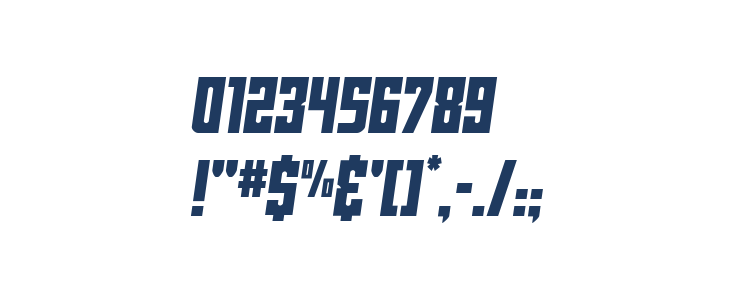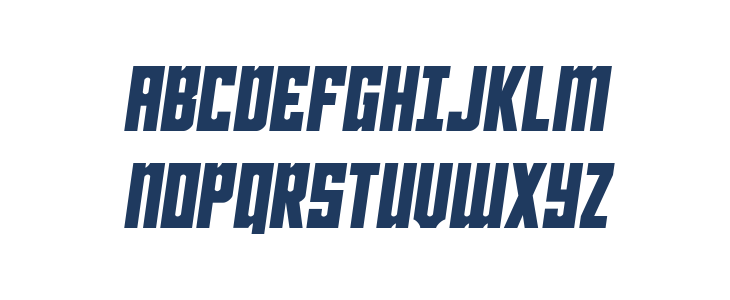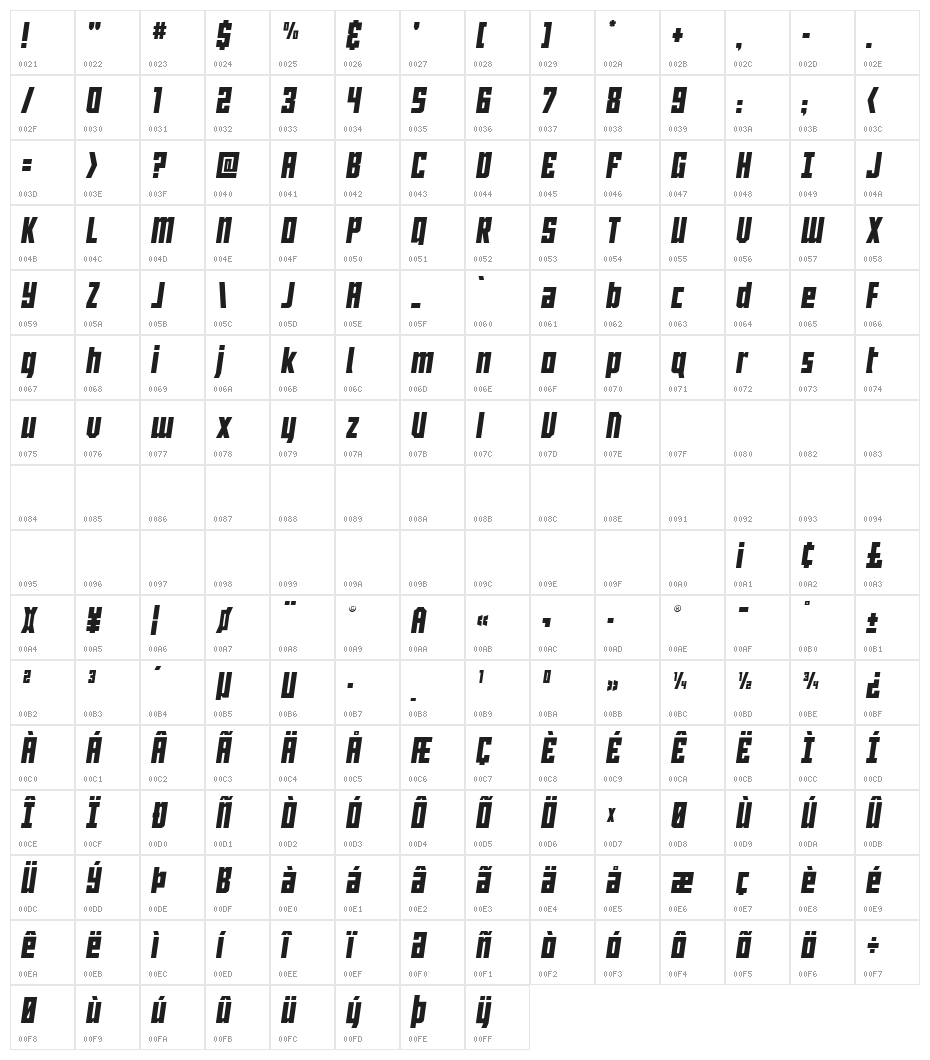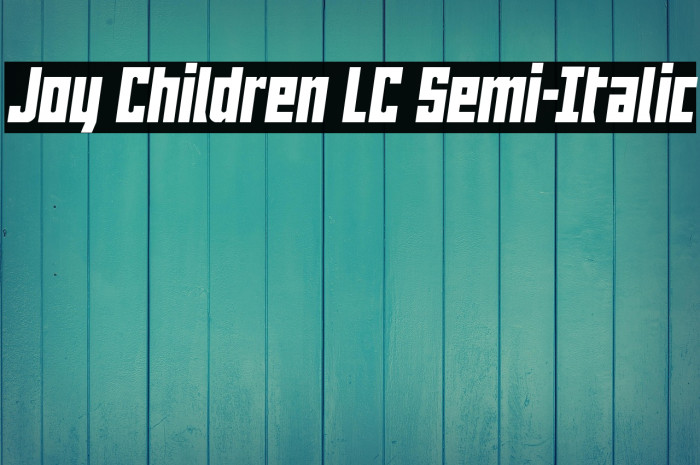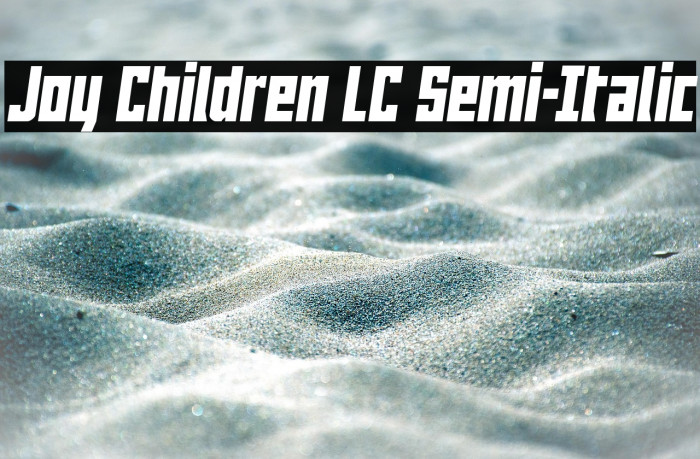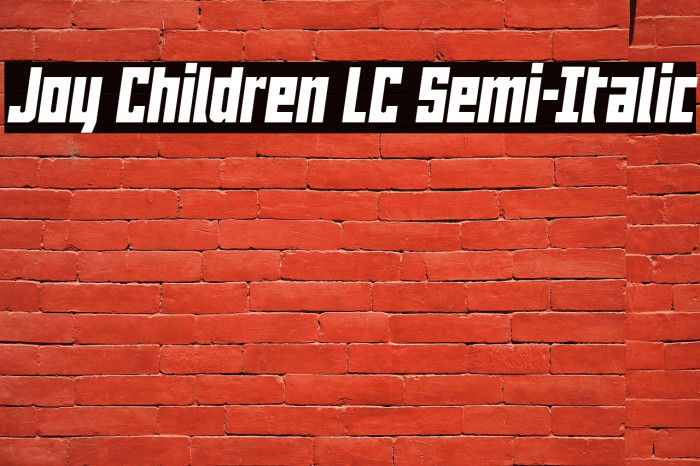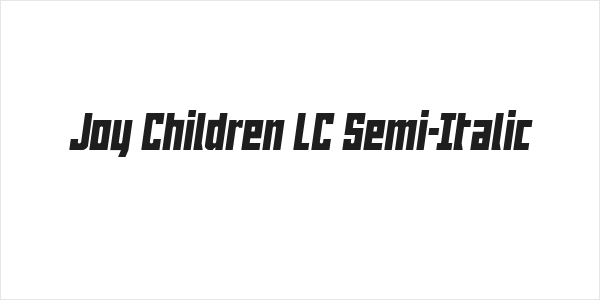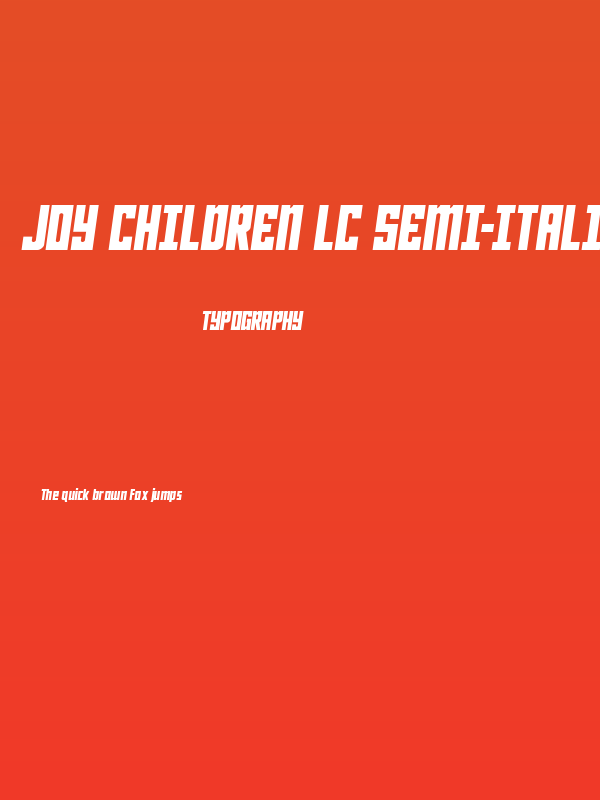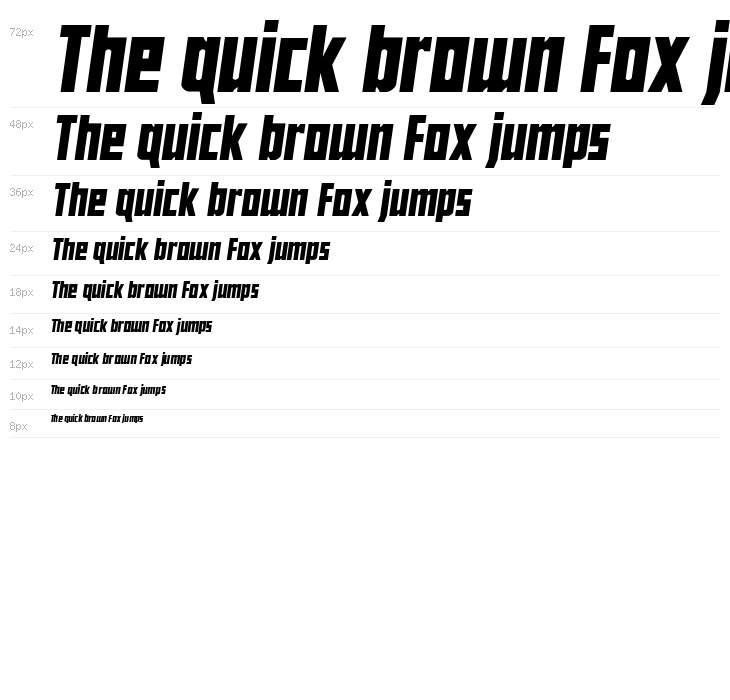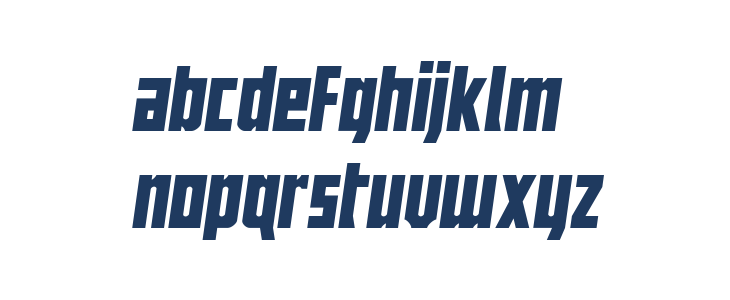
Joy Children LC Semi-Italic Font
Joy Children LC Semi-Italic Description
Bold, italic, geometric sans-serif font with a strong, modern appearance. The characters are wide with a slight slant, giving a dynamic and impactful look.
| Overall Style | Modern, Geometric, Bold |
| Use Case | Headlines, Display text, Logos |